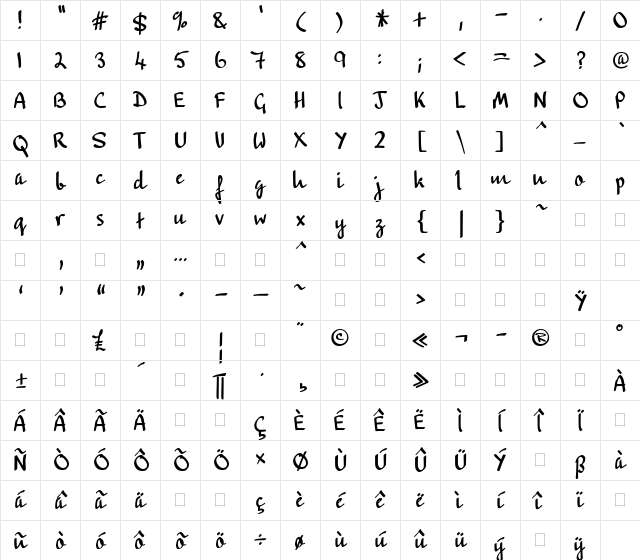
Rainbow (ParaType) Regular Free Font
Rainbow (ParaType) Regular
Complete Rainbow (ParaType) Regular glyph index. Displaying only characters natively supported by Rainbow (ParaType) Regular font.
Design Context for Rainbow (ParaType)
Rainbow (ParaType) is a composed and adaptable typeface that performs quietly and consistently across a wide range of design contexts.